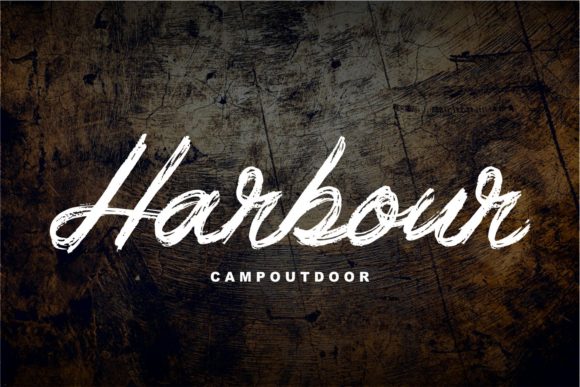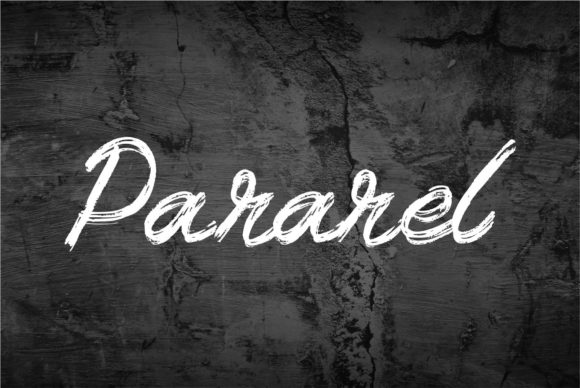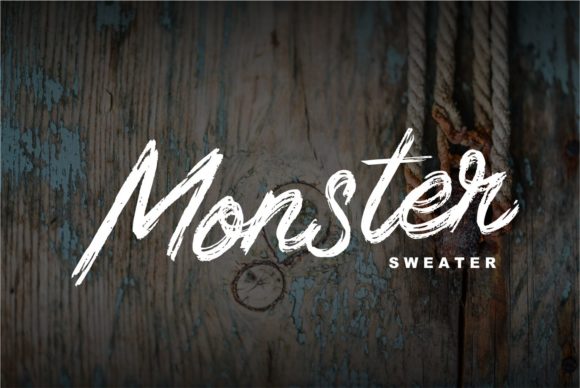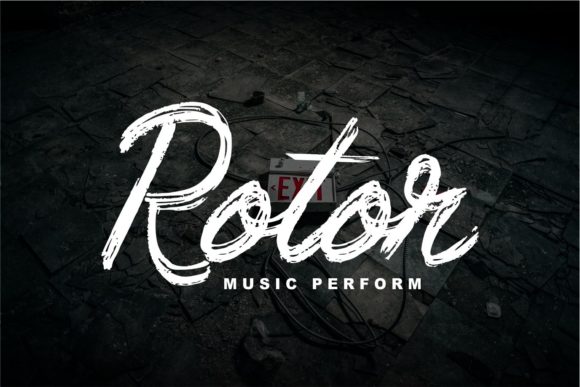
HomeScript FontsBraser Font Script Fonts Braser Font FacebookXPinterestWhatsApp Braser Font Poster 2 Braser Font Poster 3 Braser Font Poster 4 Braser Font Poster 5 About Braser Font Braser is grungy and fizzled out script. It will add a strong feel to any design project. DOWNLOAD ON CREATIVE FABRICAThis font is sold and delivered by Creative Fabrica. Font Canyon may earn a commission if you buy through this link. People also explored Anboxing Font Climate Font Sweet Serendipity Font Chamylla Font Qojack Font Hiking Font Alphabetta Font Dolphins Font Milloyste Font 316 0 TagsBraser Font Previous articleBeliau FontNext articleStafani Font LEAVE A REPLY Cancel reply Comment: Please enter your comment! Name:* Please enter your name here Email:* You have entered an incorrect email address! Please enter your email address here Website: Save my name, email, and website in this browser for the next time I comment. Personal Use Free Good Mood Personal Use Free Read more about this font Eric”s Personal Use Free Read more about this font Denisha Personal Use Free Read more about this font Calega Personal Use Free Read more about this font BLOG 5 Fonts That Will Dominate Design Trends in 2026 5 Fonts for 2026 That Will Dominate Design Trends Typography plays a critical role in visual communication, and as we look ahead to 2026, it’s... How to Install and Use Fonts on Windows, macOS, and Web Projects How to Cut Any Font on Cricut: Convert a Font to SVG (Free) Best Fonts for YouTube Videos: Make Your Thumbnails Stand Out